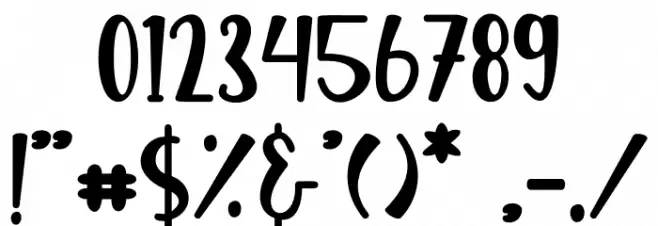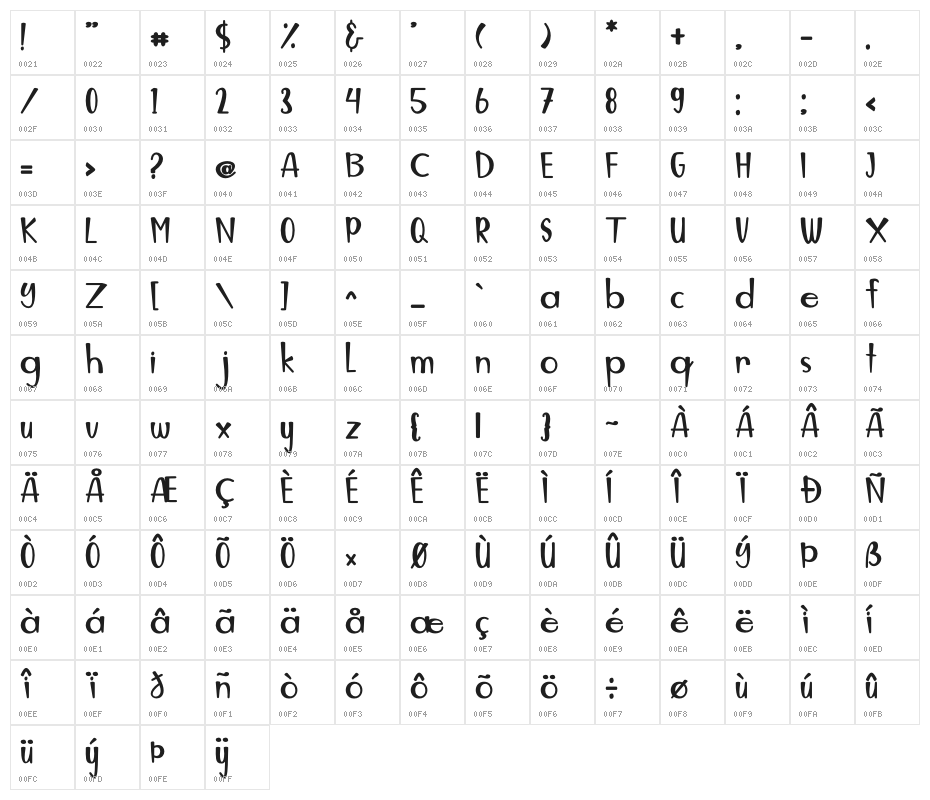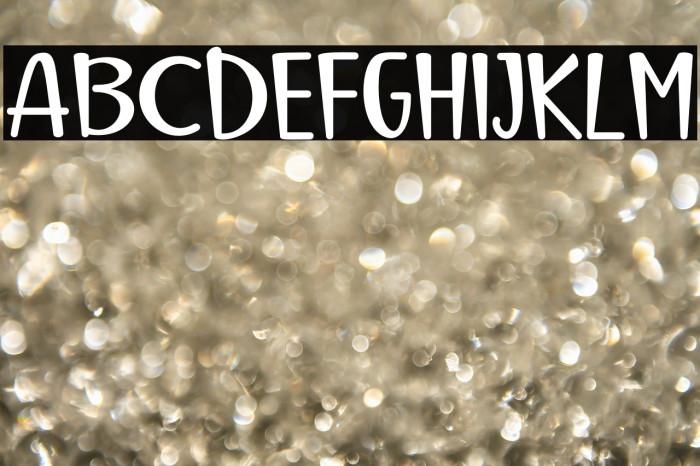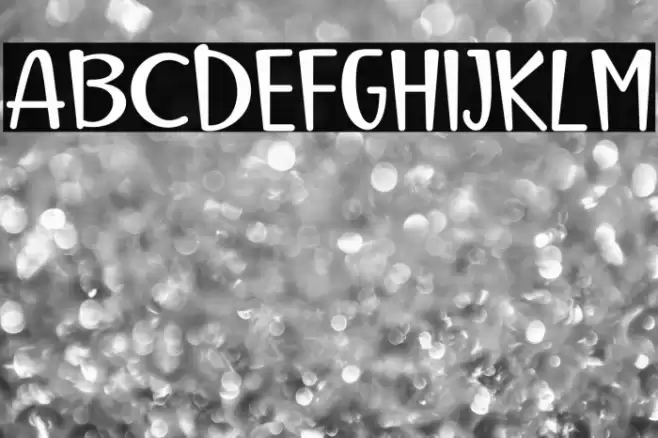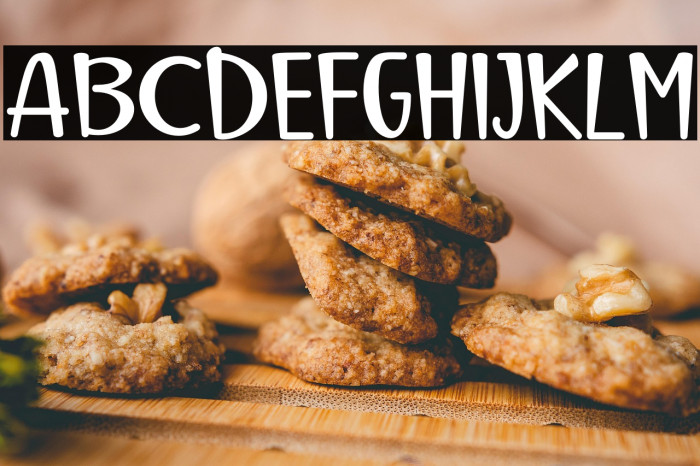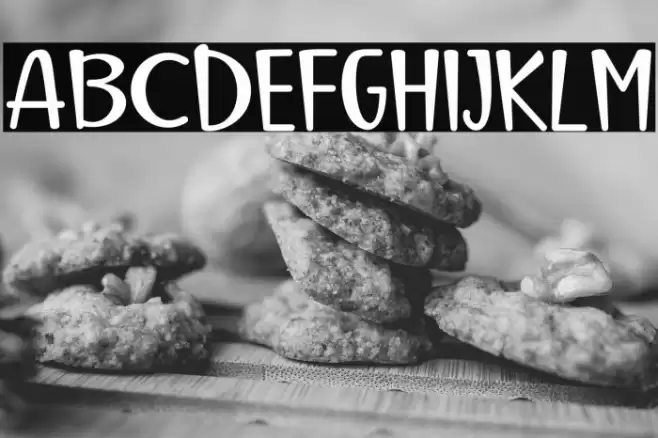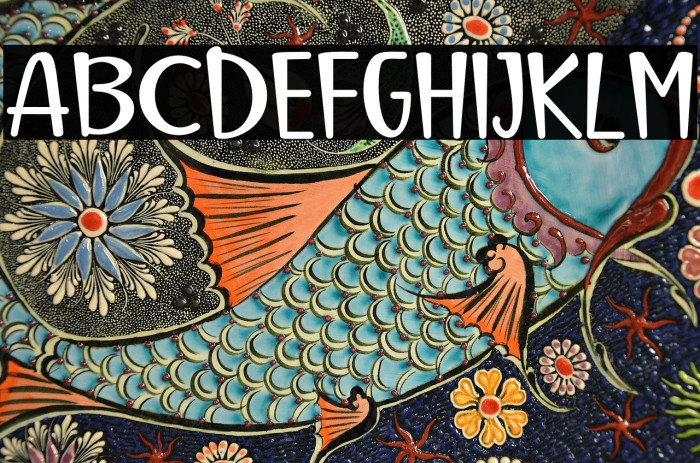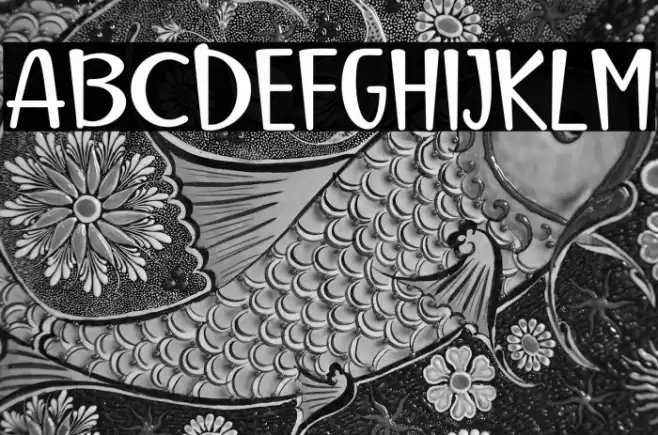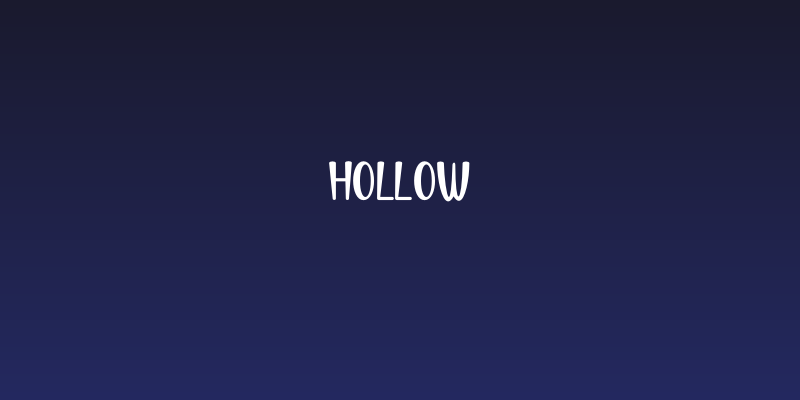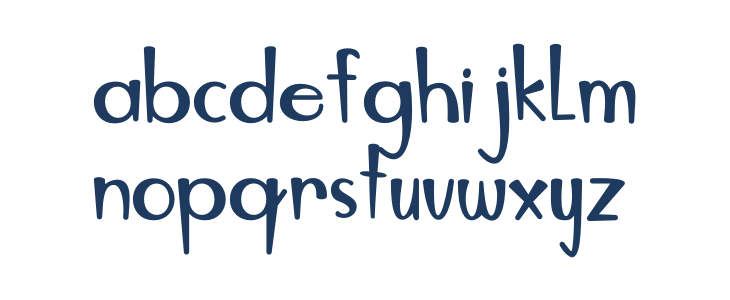
Hollow Font
Hollow Description
This playful and bold font features a handwritten style with a whimsical touch. The characters are slightly irregular, adding a sense of fun and creativity. The uppercase letters are tall and slightly narrow, while the lowercase letters maintain a consistent flow with rounded edges. The numbers are bold and easy to read, complementing the overall style. Special characters are creatively designed, maintaining the playful theme. This font is perfect for projects that require a casual and friendly appearance.
| Proposed Projects | Ideal for children's books, greeting cards, playful branding, and social media graphics. |